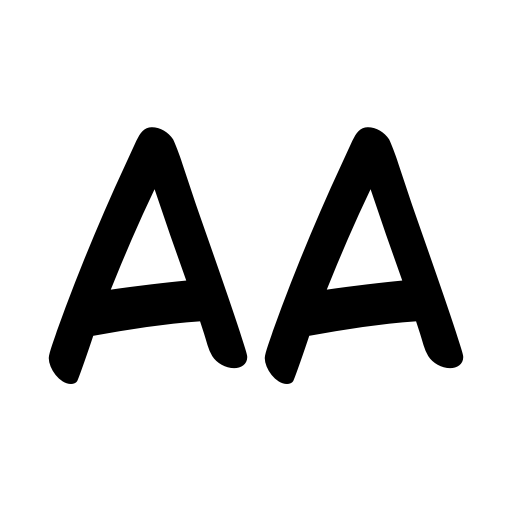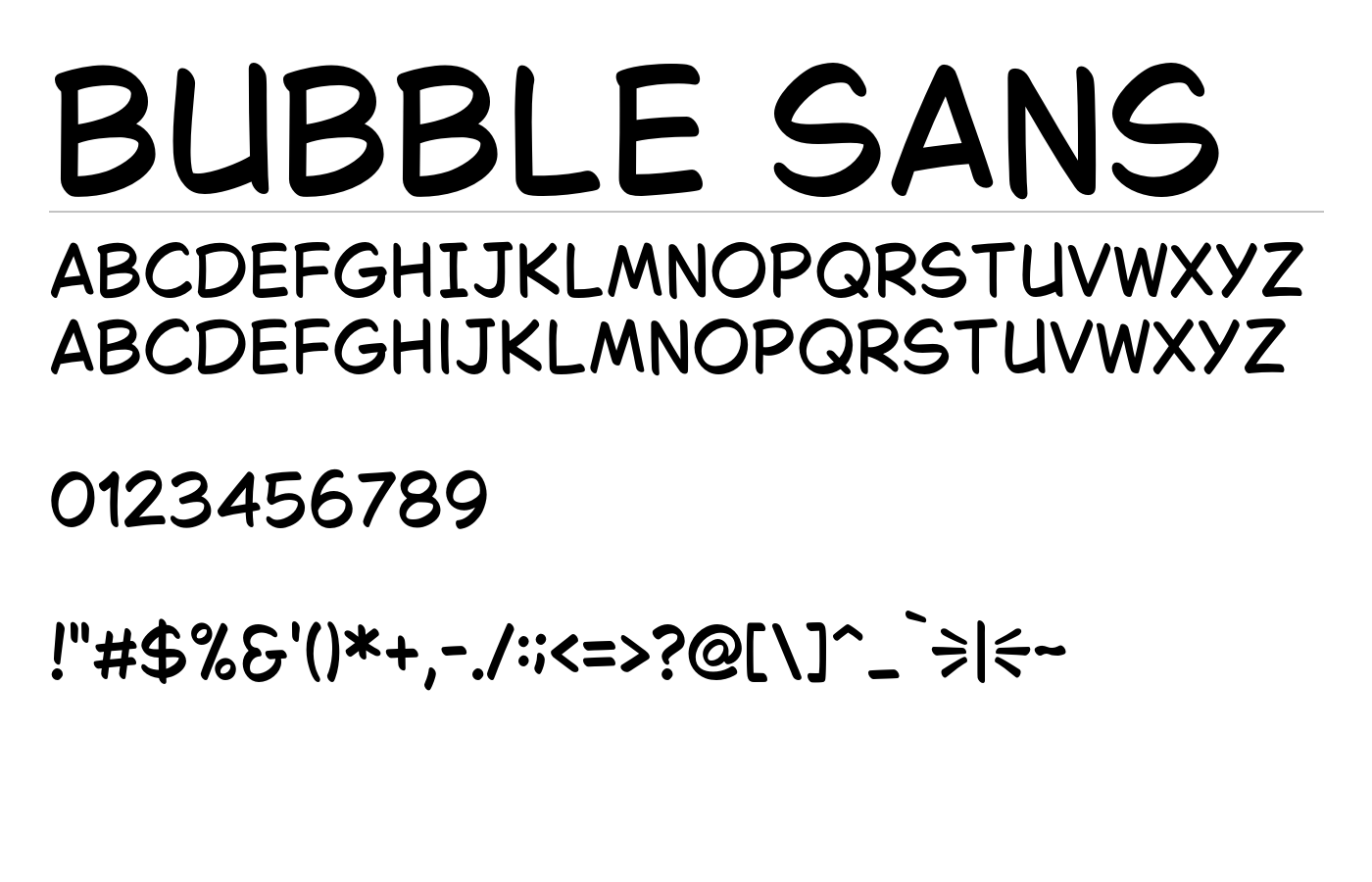
Bubble Sans is a playful and friendly sans serif font with rounded, slightly irregular letterforms that give it a hand-drawn, casual feel. Its medium weight and open, airy spacing make it easy to read while maintaining a fun, approachable personality, ideal for informal branding, children’s products, and creative projects. This font works well in headlines, logos, and packaging where a warm, inviting, and lively vibe is desired.
Bubble Sans Font
About Bubble Sans Font
| Font family | Bubble Sans Font |
| Languages supported | Latin, Cyrillic, Armenian, Greek |
| Designer | Abay Emes |